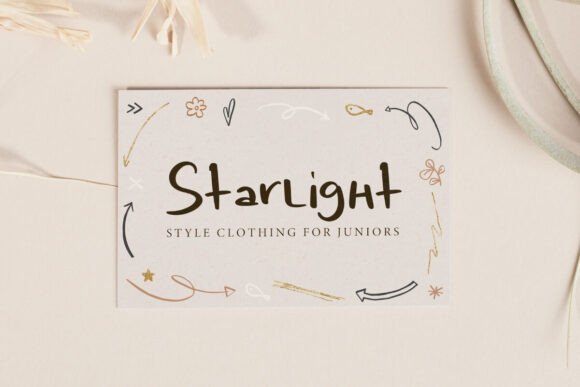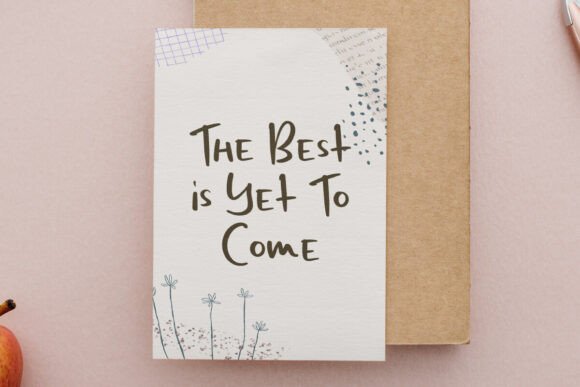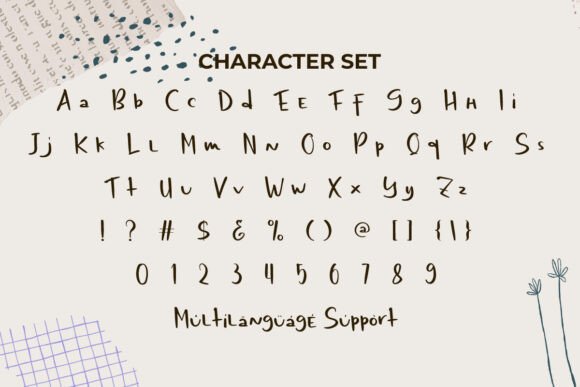
Come and Follow Font
About the Come and Follow Font
Meet Come and Follow Font, a stunning font that brings a touch of elegance and professionalism to any design. Come And Follow is a fun and friendly font that brings a handcrafted touch and will brighten up any of your designs, such as blogs, brand identity, brochure, business cards, cover, flyer, greeting cards, header, invitation, logo design, pamphlet, quotes, screen print, title, website, etc. This versatile font is great for both formal and informal events!
Its friendly, handcrafted feel makes it ideal for headlines, short text blocks, and branding elements where a touch of warmth and personality is desired. Consider it for logos, invitations, posters, or packaging for artisan products or businesses with a similar ethos. However, its informal nature makes it less suitable for large blocks of body text or user interfaces requiring high readability.
Come and Follow Font pairs well with clean sans-serif fonts like Open Sans or Lato for a balanced contrast, or with a classic serif like Garamond for a more refined, yet approachable, feel. For a playful, yet sophisticated look, consider pairing it with a delicate script font.
The font’s overall personality is best described as cheerful and approachable, making it a strong choice for brands focusing on community, handmade goods, or family-oriented businesses.
Come and Follow Font Usage Examples
Come and Follow Font Example